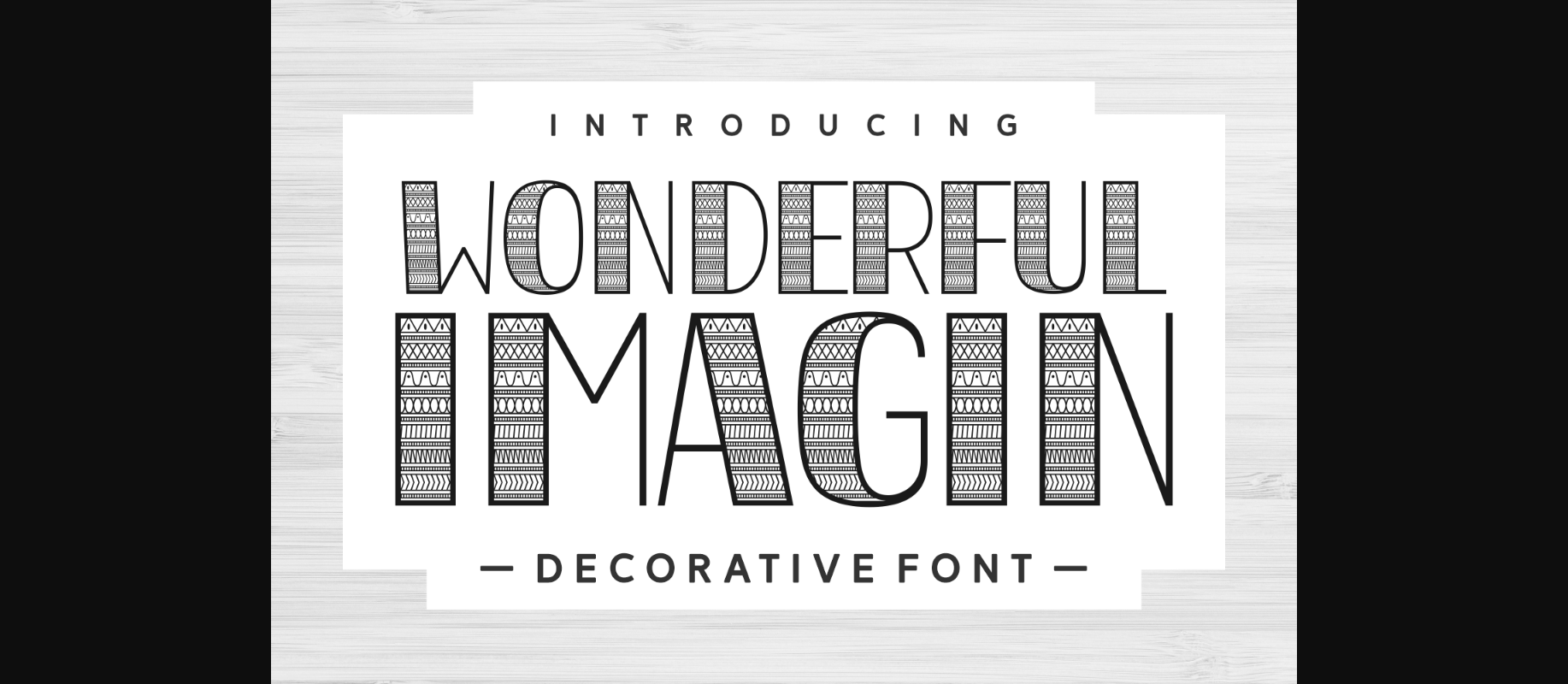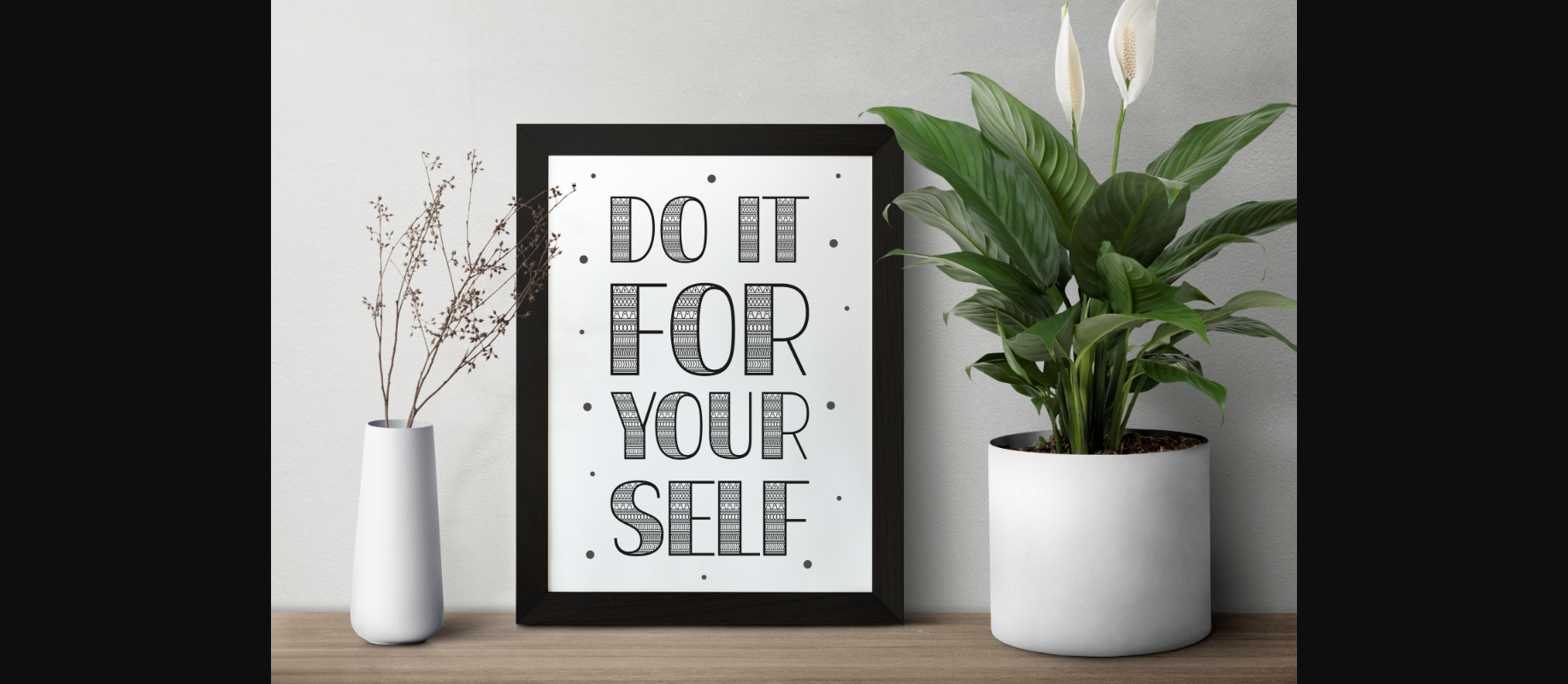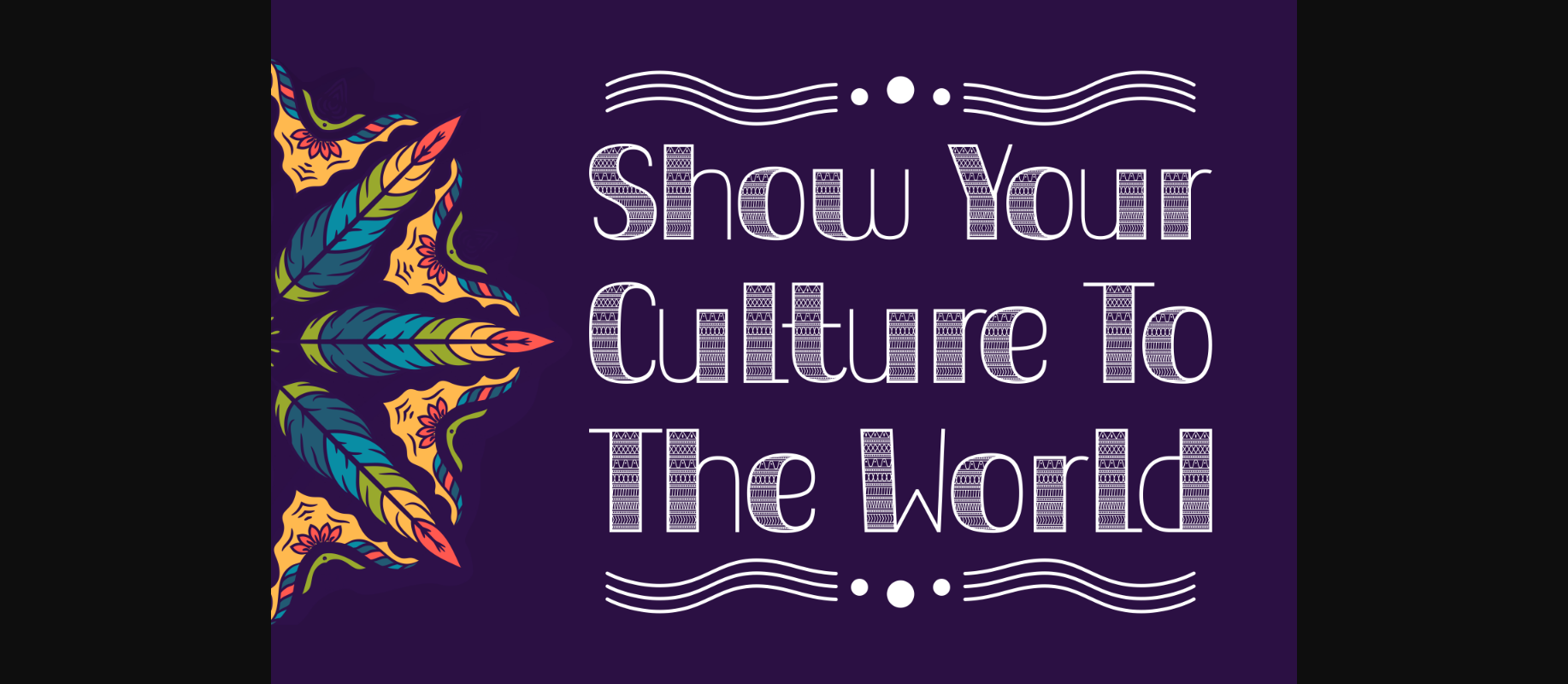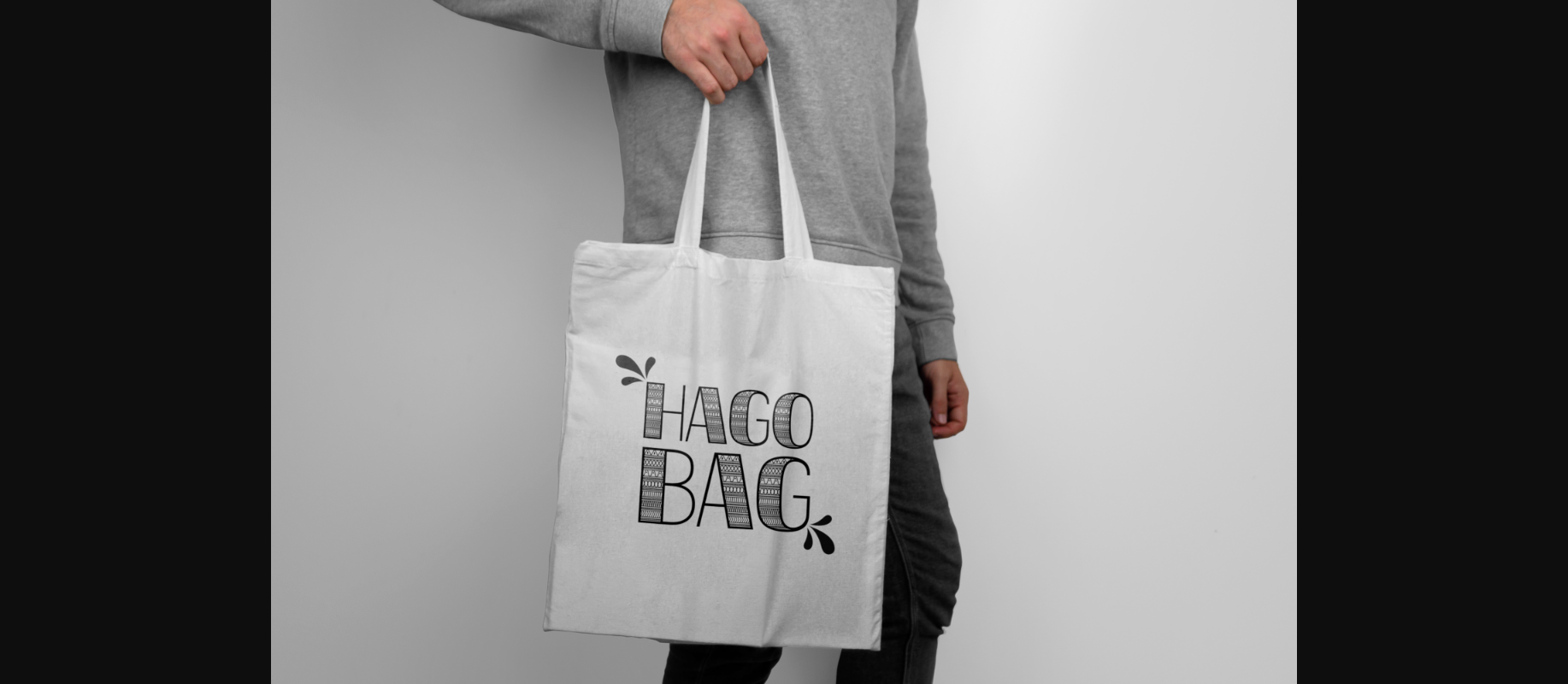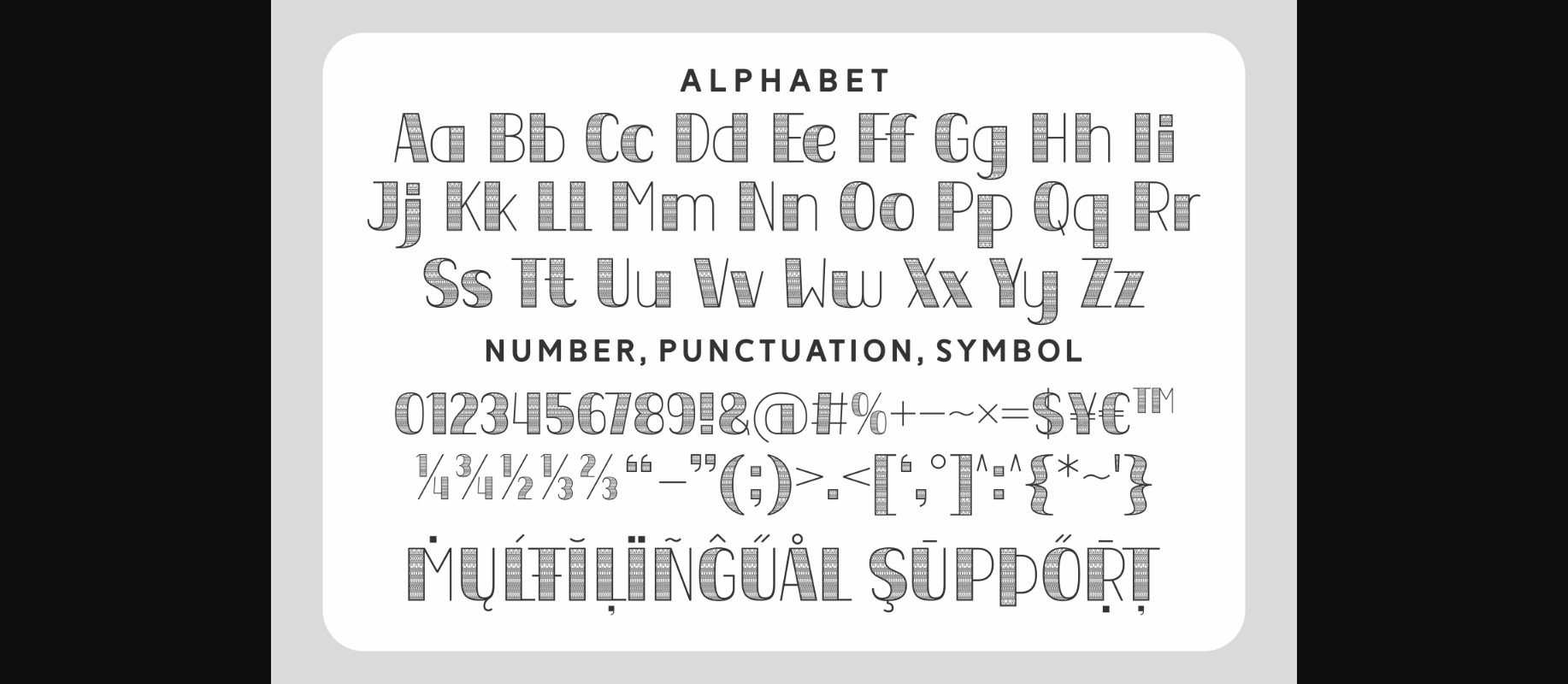
About Wonderful Imagin Font
Wonderful Imagin is a beautiful and chic decorative font. The lovely geometric patterns give this font its distinctive boho look, making it perfect for creating stylish and unique typography. Give it a try in your upcoming design project!